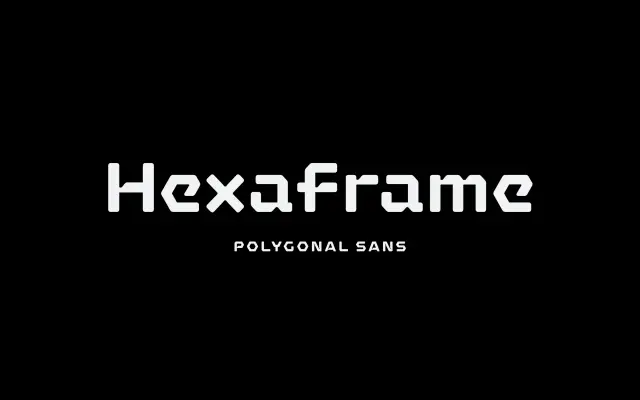
Hexaframe CF
A hard-edged geometric display face built from polygonal forms and rounded corners, aimed at STEM, robotics and corporate identity work.
Seven weights from Thin to Heavy, each with an oblique companion, give the family range across branding and interface applications. The letterforms draw on industrial and mechanical aesthetics, making it a reasonable fit for technology branding, STEM products and UI contexts where a robust technical personality is wanted. Latin script coverage spans a broad range of European languages.
Built from hard polygons and rounded edges with a mechanical, industrial character, Hexaframe is clearly a display typeface designed for visual impact rather than extended reading, placing it firmly in geometric display territory.